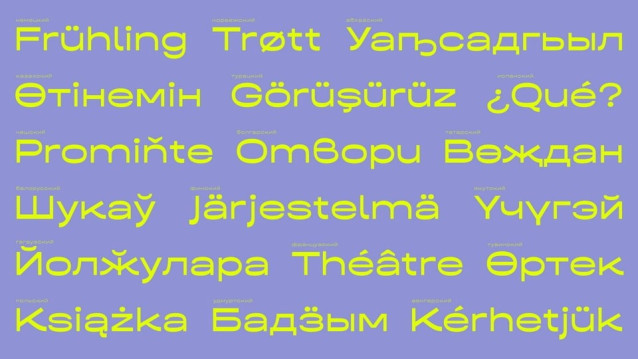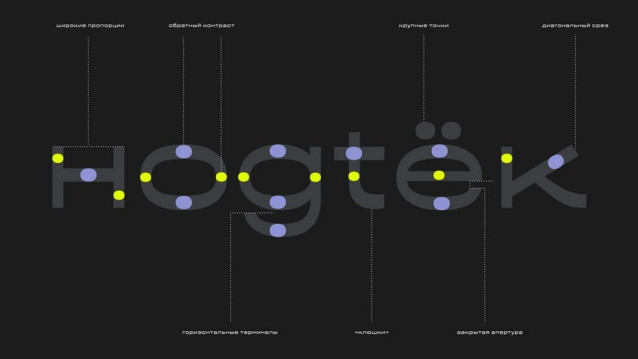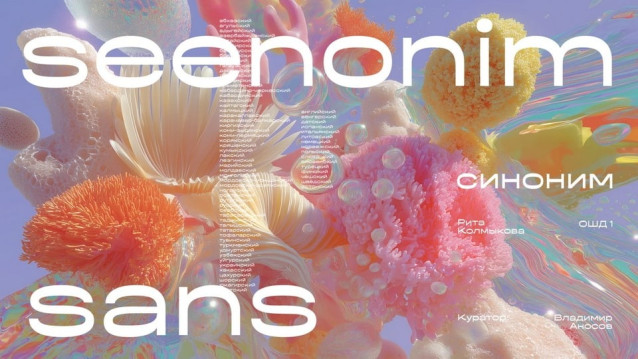
Seenonim Font is a sans serif typeface with reversed contrast, closed apertures, and wide proportions. Designed to balance geometric precision with subtle warmth, it features rounded details, expressive stroke endings, and large diacritical marks.
Supports over 80 languages.
| Designer Name: | Rita Kolmykowa |